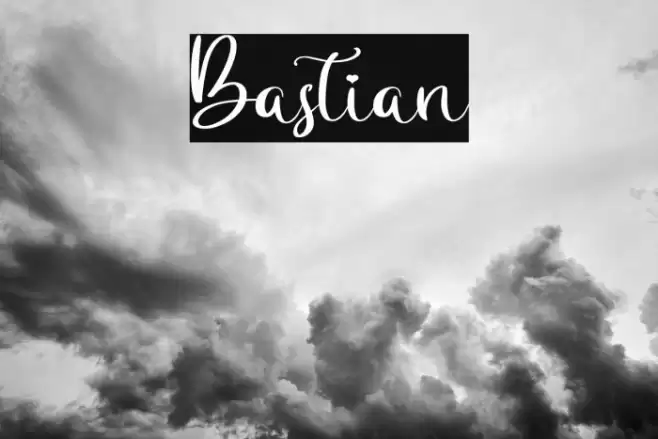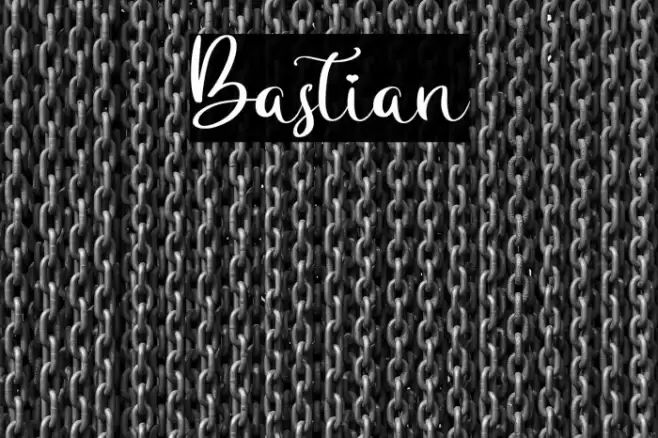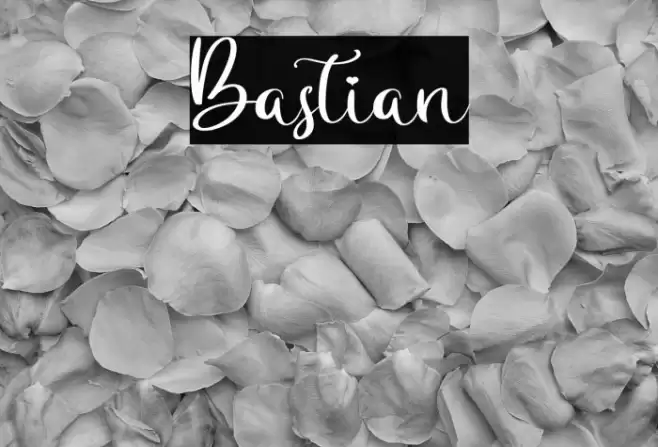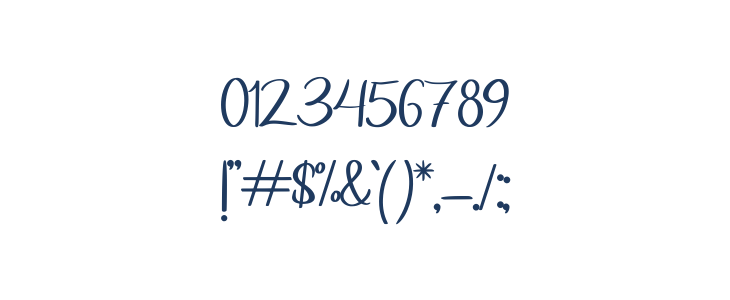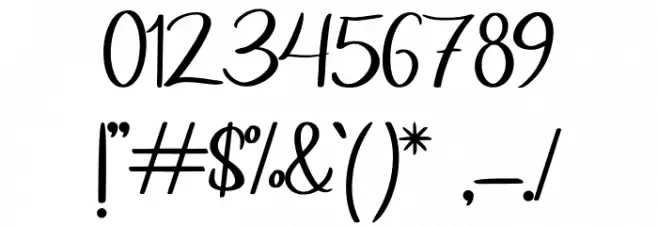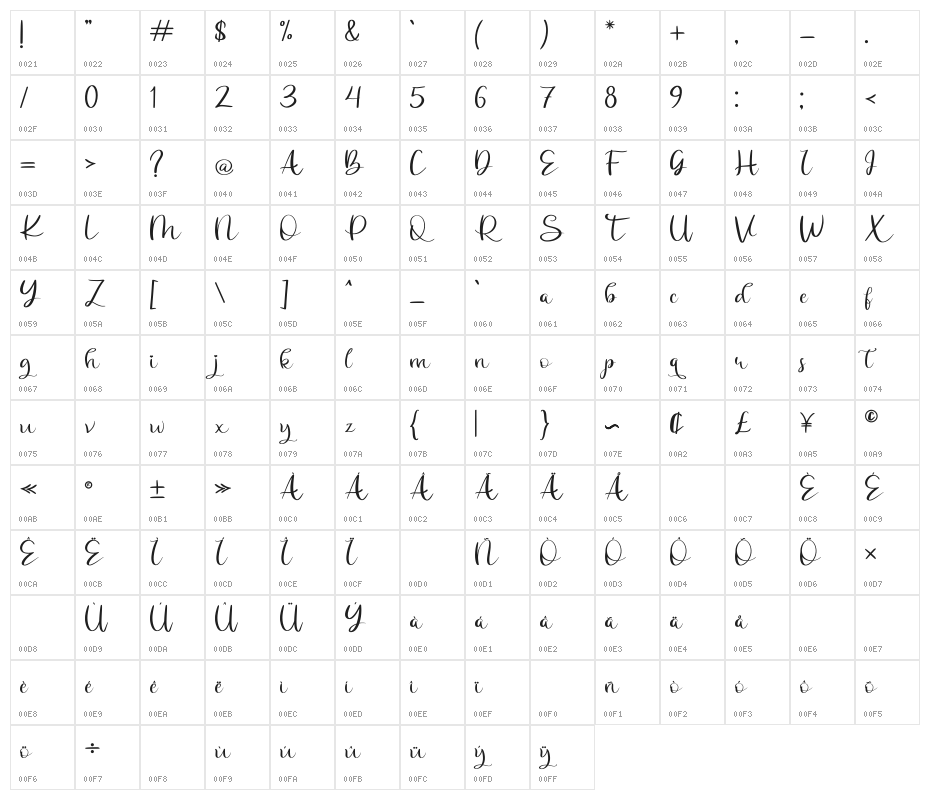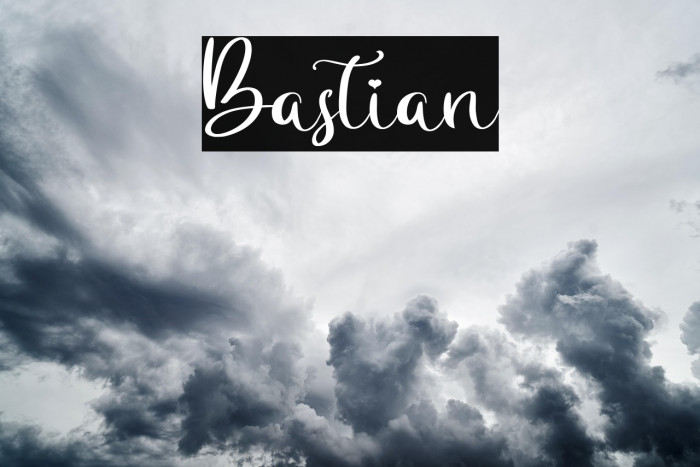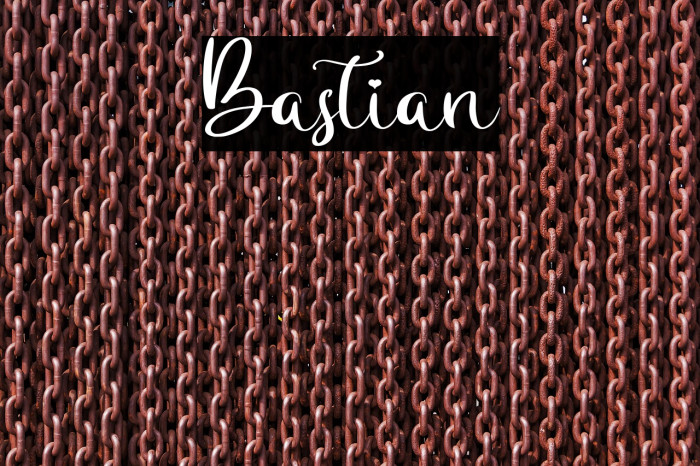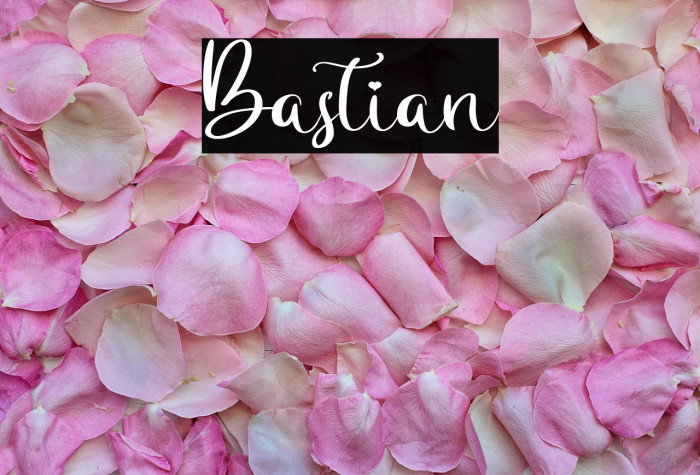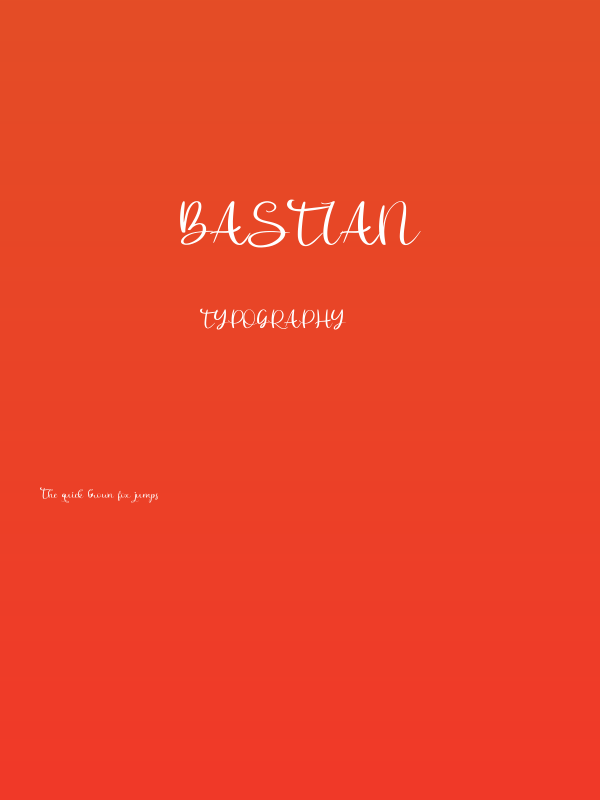
Bastian Font
Bastian Description
This font exudes a graceful and elegant style, characterized by its flowing, cursive script. The letters are interconnected with smooth, sweeping strokes that give it a handwritten appearance. The uppercase letters are tall and slightly slanted, while the lowercase letters maintain a consistent flow with delicate loops and curves. The numerals are stylishly crafted to match the overall script theme, and the special characters are designed with the same fluidity. This font is perfect for projects that require a personal touch, such as invitations, greeting cards, or branding materials.
A graceful, cursive script font with elegant, flowing strokes from Uncategorized fonts.
- Proposed Projects: Ideal for wedding invitations, personal branding, greeting cards, and elegant packaging designs.
- Overall Style: Elegant, Handwritten
- Use Case: Logos, Invitations, Greeting cards